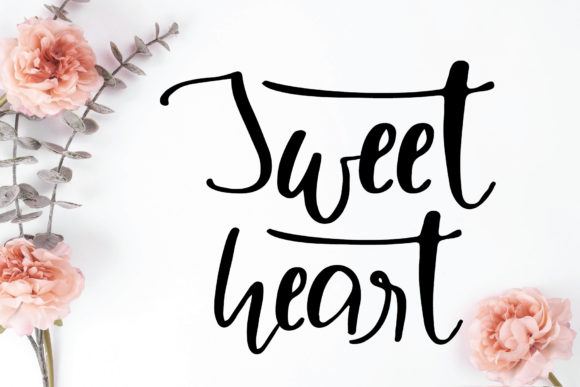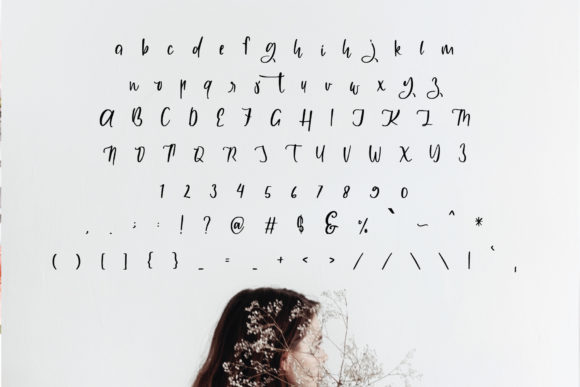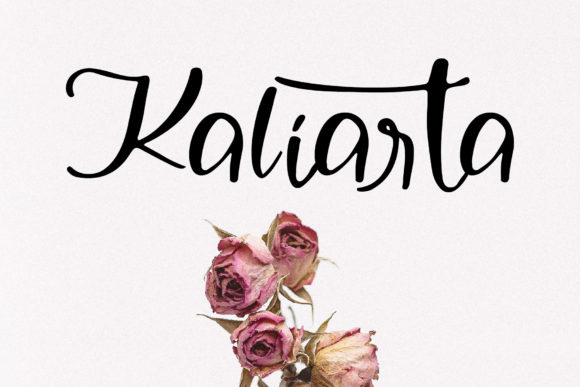
The Perfect Touch of Elegance with Kaliarta Font
Do you ever find yourself lost in a world of creativity, surrounded by papers, glue, and a dash of imagination? That’s where the magic happens, and I’m sure many of you can relate to the feeling of excitement that comes with bringing a new project to life. For me, it’s the moment when the words start flowing, and the design begins to take shape.
As a designer, I’m always on the lookout for the perfect font to give my projects that extra oomph. That’s where Kaliarta Font comes in – a fancy script typeface with a unique style that adds a touch of romance to any crafting project. With its elegant curves and flowing lines, Kaliarta Font is a valuable addition to any designer’s toolkit, allowing them to create beautiful and eye-catching designs with ease.
Kaliarta Font Key Features
- Unique Characteristics: Features a unique blend of modern and traditional typography, with distinctive letterforms and ornaments that add a touch of elegance to any design.
Kaliarta Font Review
I recently had the chance to work with the Kaliarta font, and I must say it’s an interesting addition to the world of typography. Here are my thoughts.
- ✨ The unique, cursive design makes it perfect for adding a touch of elegance to wedding invitations, or other formal events.
- ✨ Kaliarta’s bold, yet refined lines make it suitable for creating eye-catching headlines and titles.
- ✨ The font is highly customizable, allowing you to adjust the spacing, size, and color to suit your project’s needs.
- ⚠️ In some cases, the font’s cursive design can be difficult to read at smaller font sizes.
- ⚠️ The font may not be suitable for body text, as it can be overwhelming for long passages of text.
- ⚠️ Some users may find the font’s unique design too busy or distracting.
Kaliarta is a beautiful, high-quality font that’s perfect for making a statement. While it may have some limitations, it’s an excellent choice for designers looking to add a touch of sophistication to their projects. With the right use case, Kaliarta can truly shine.
Tips for Getting the Most Out of Kaliarta Font
Use Kaliarta Font to add a touch of elegance and sophistication to your designs. Experiment with different font sizes, colors, and styles to create a unique look. Pair Kaliarta Font with other elegant fonts or bold fonts to create contrast and visual interest.
Kaliarta Font is perfect for creating elegant and sophisticated designs for:
– Wedding invitations
– Luxury brand marketing materials
– High-end product packaging
– Elegant business cards and stationery
Alternatives to Kaliarta Font for Designers
Bebas Neue is a modern sans-serif font designed by Ryoichi Tsunekawa. It is perfect for use in branding, advertising, and digital products. Bebas Neue has a similar geometric feel to Kaliarta Font but with a more refined and elegant appearance.
Montserrat is a popular sans-serif font designed by Julieta Ulanovsky. It is ideal for use in urban and modern designs, such as logos, posters, and websites. Montserrat has a similar urban feel to Kaliarta Font but with a more condensed and geometric appearance.
Playfair Display is a luxurious serif font designed by Claus Eggers Sørensen. It is perfect for use in high-end branding, advertising, and editorial designs. Playfair Display has a more elegant and refined appearance compared to Kaliarta Font, making it suitable for sophisticated designs.